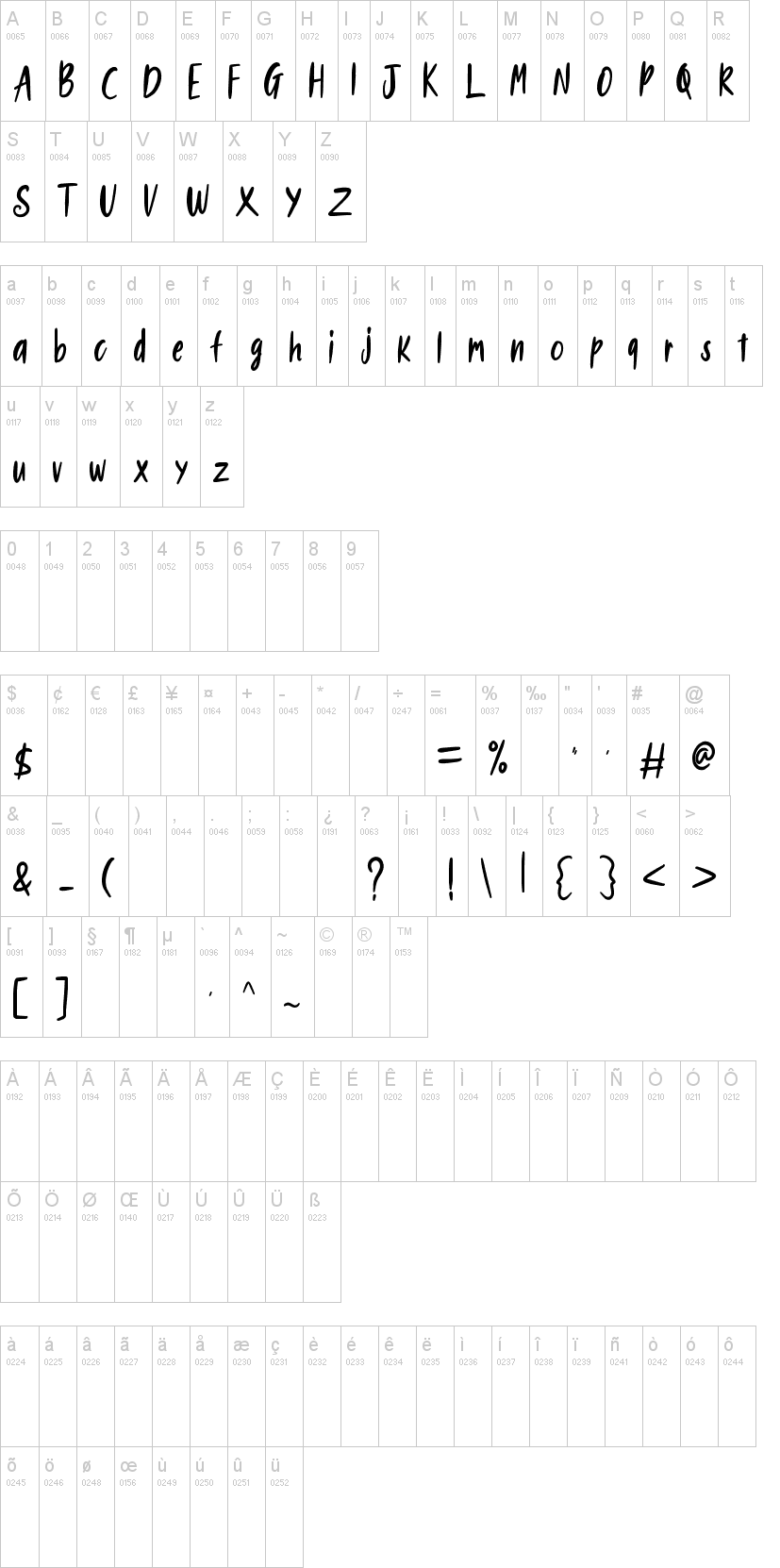
Note of the authorNew Bartons is cheerful handmade brush font, with a bold weight perfect for adding some romance and charm to your designs. This script functions most strongly as a display or headline font. suitable for logo, logotype, branding, fashion, label, book cover, t-shirt, instagram post, and other